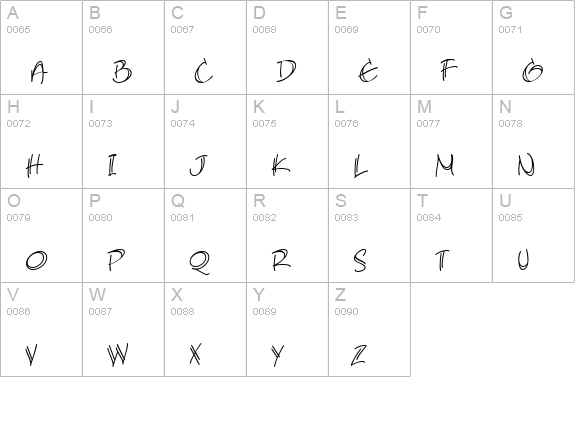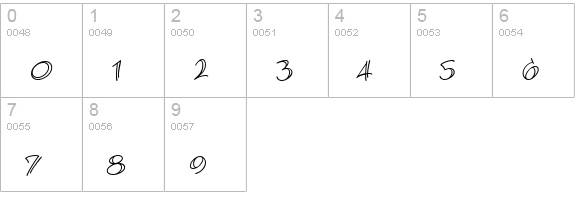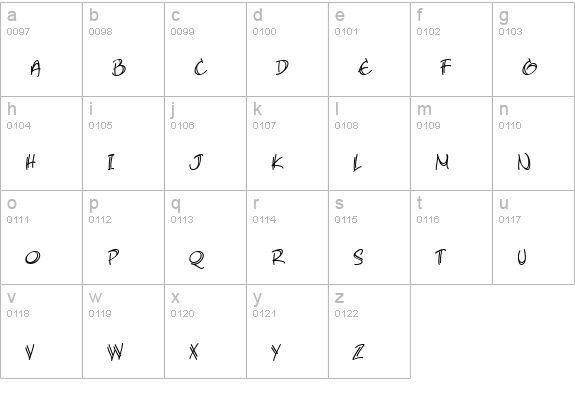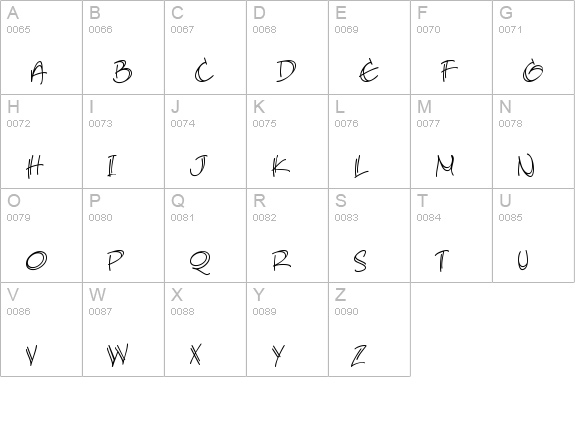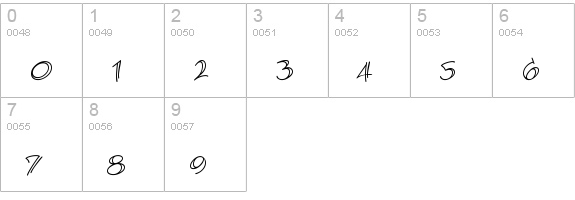
AtlandSketches BB font is a charming and whimsical typeface that exudes a hand-drawn feel, perfect for adding a touch of creativity and fun to your projects. This font features playful and irregular strokes that give it a unique and artistic appearance. With its informal style, AtlandSketches BB is ideal for a variety of designs, from greeting cards to posters to social media graphics. Best of all, AtlandSketches BB font is completely free to download at FontsMarket.com. Whether you're a designer looking to add a quirky element to your work or simply want to express your creativity through typography, AtlandSketches BB is a fantastic choice. Download it today and let your imagination run wild with this delightful and expressive font.